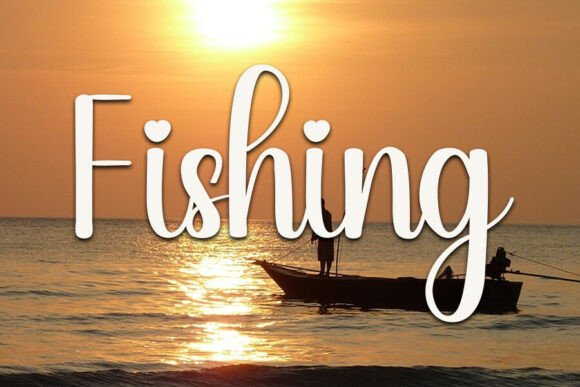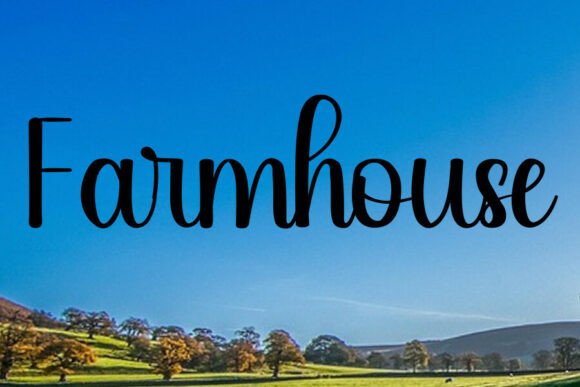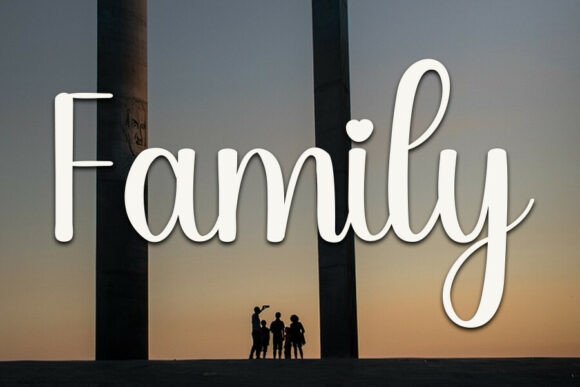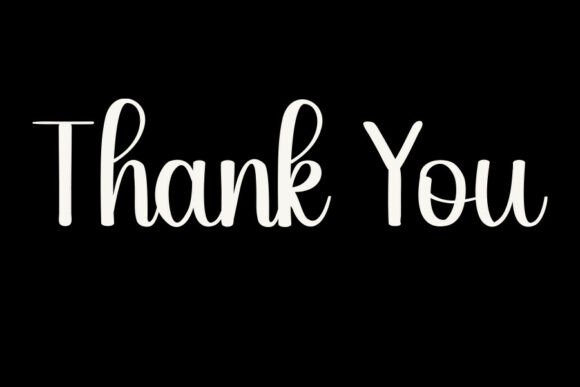
Unleash the Spoirit of Design with Halloween Font
As the spookiest time of the year approaches, designers and crafters are on the lookout for fonts that capture the essence of Halloween’s eerie elegance. Introducing Halloween Font, a stylish script font that exudes artistic flair and contemporary sophistication. With its fluid brush strokes, dynamic curves, and expressive letterforms, this font is perfect for adding a creative and sophisticated touch to any design.
The Art of Hand-Painted Calligraphy
Halloween Font is inspired by the art of hand-painted calligraphy, with a modern twist that sets it apart from traditional fonts. Its fluid brush strokes and dynamic curves give it a natural flow that’s reminiscent of hand-painted letters. The expressive letterforms add a touch of personality to each character, making it perfect for designs that require a bit of whimsy and flair.
Whether you’re designing a logo, invitation, packaging, or social media graphics, Halloween Font is the perfect choice. Its versatility and visual impact make it suitable for a wide range of design projects, from elegant and sophisticated to playful and spooky. The font’s natural flow and vibrant character ensure that your designs stand out from the crowd and leave a lasting impression.
Key Features of Halloween Font
- Fluid Brush Strokes: Halloween Font features fluid brush strokes that give it a natural, hand-painted look.
- Dynamic Curves: The font’s dynamic curves add a touch of elegance and sophistication to each character.
- Expressive Letterforms: The expressive letterforms add a bit of personality to each character, making it perfect for designs that require a bit of whimsy and flair.
- Modern Twist: Halloween Font’s modern twist sets it apart from traditional fonts and makes it perfect for contemporary designs.
Tips for Using Halloween Font
- Use it sparingly: Halloween Font is perfect for headlines, titles, and emphasis text. Use it sparingly to add a touch of elegance and sophistication to your designs.
- Experiment with colors: The font’s vibrant character makes it perfect for designs that require a bit of color and whimsy. Experiment with different colors and combinations to find the perfect look for your design.
- Pair it with other fonts: Halloween Font pairs well with other fonts, especially those with a more traditional or serif look. Experiment with different font combinations to find the perfect look for your design.
Halloween Font in Action
Halloween Font is perfect for a variety of design projects, including:
- Logos: Add a touch of elegance and sophistication to your logo with Halloween Font.
- Invitations: Create spooky and elegant invitations for Halloween parties and events.
- Packaging: Add a touch of whimsy and flair to your packaging with Halloween Font.
- Social Media Graphics: Create eye-catching social media graphics that stand out from the crowd with Halloween Font.